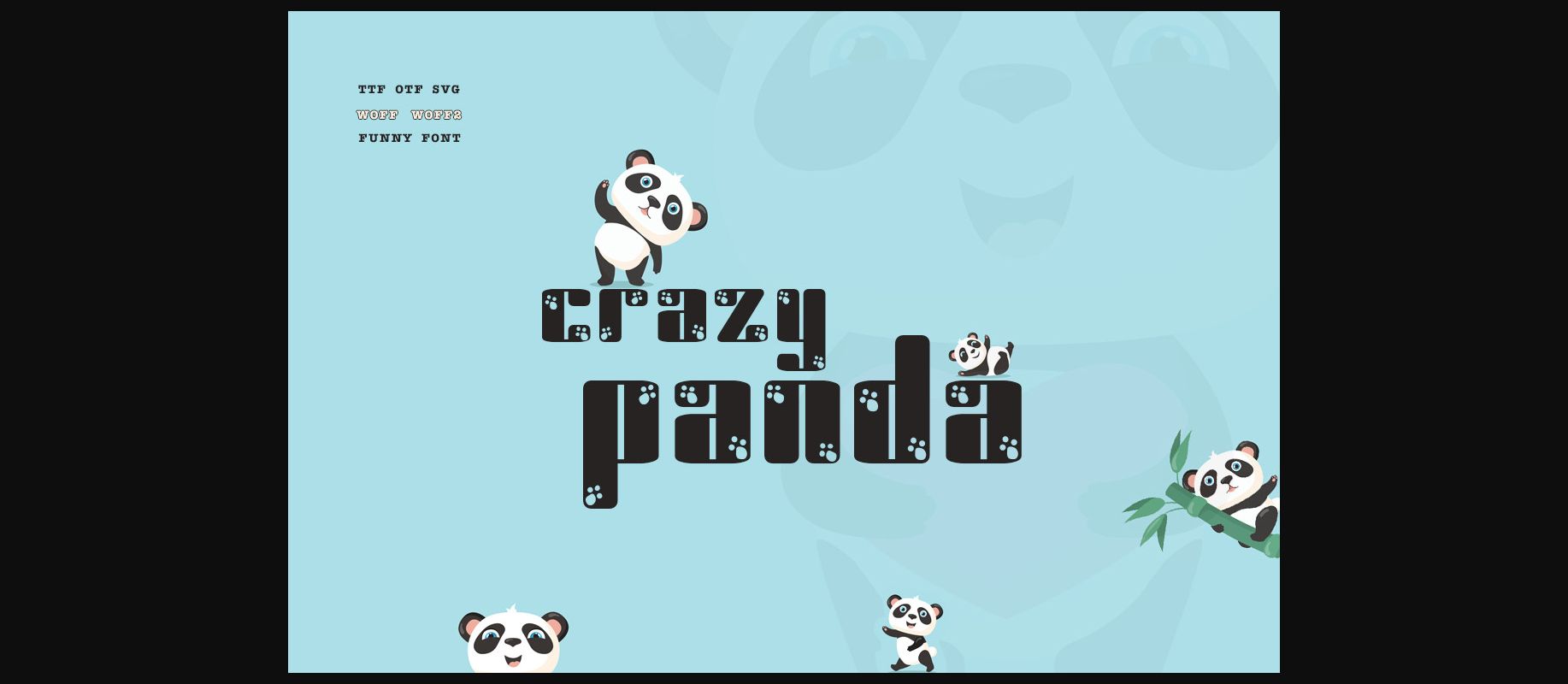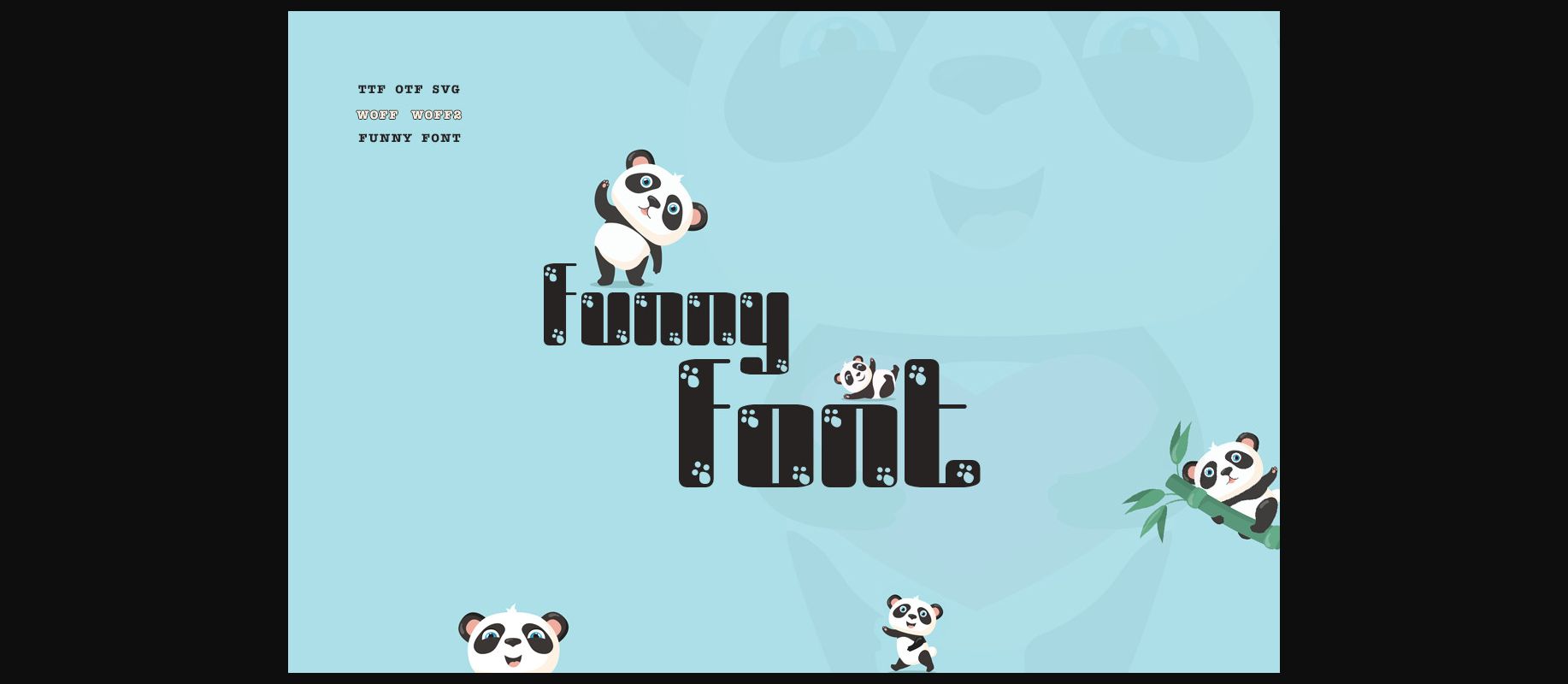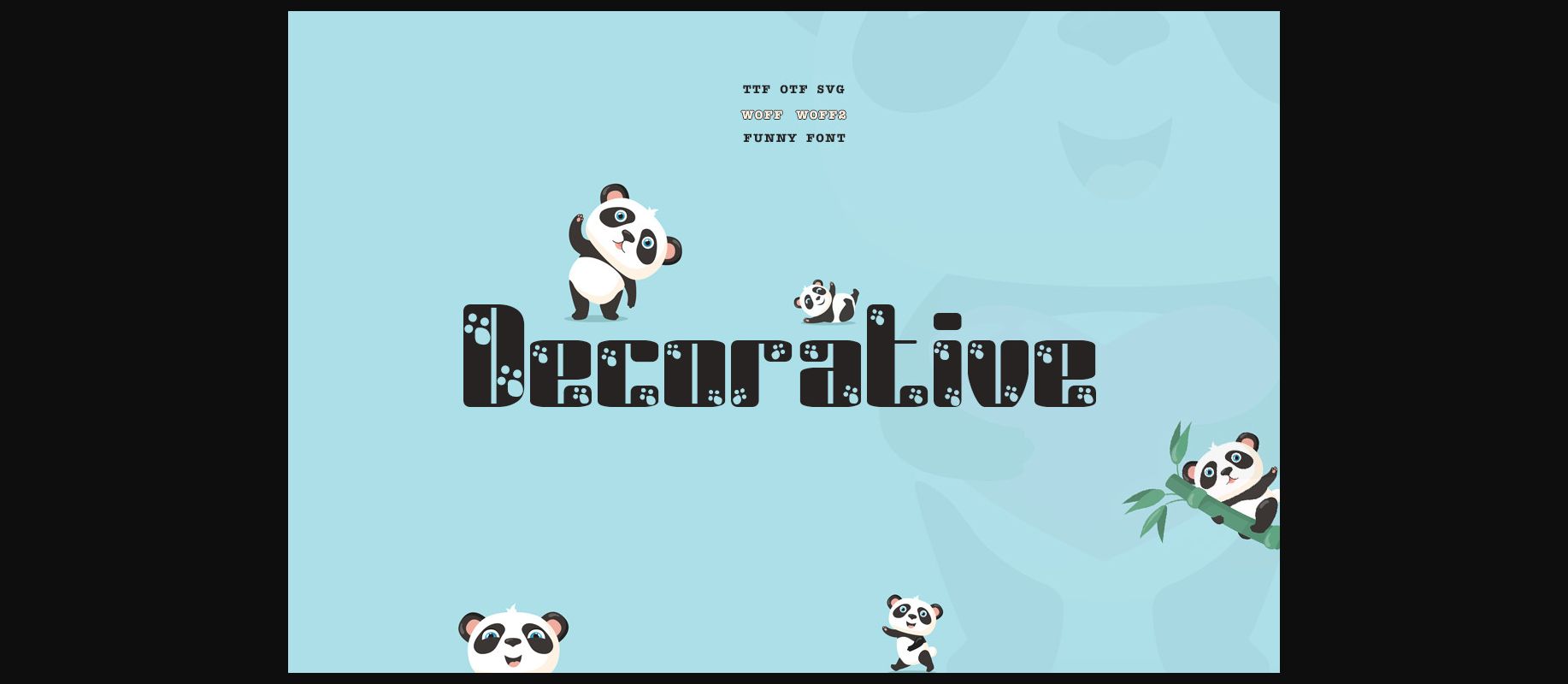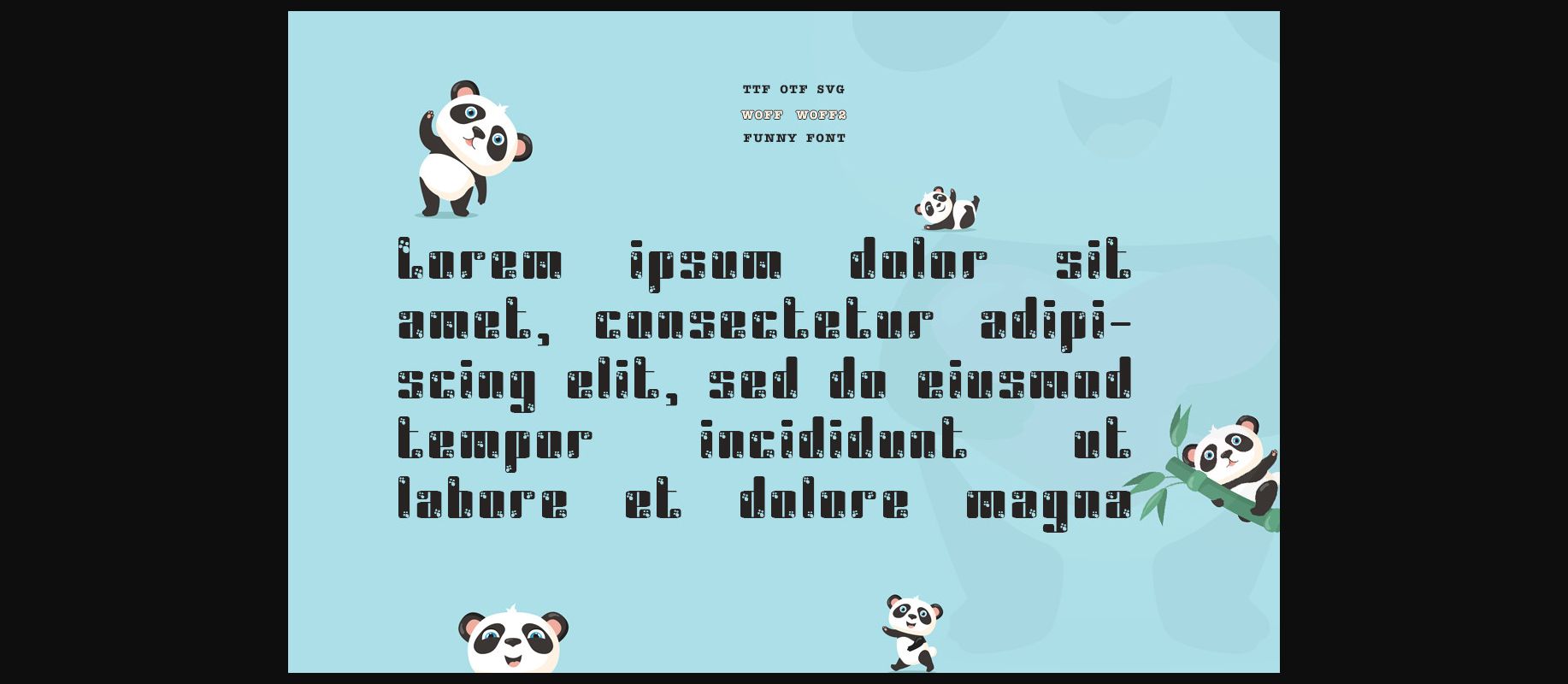
Crazy Panda Font
About Crazy Panda Font
Crazy Panda is a cool and fun looking decorative font, featuring little paws on each letter. This font embodies playfulness and authenticity and is the perfect choice for any children activity or school project.